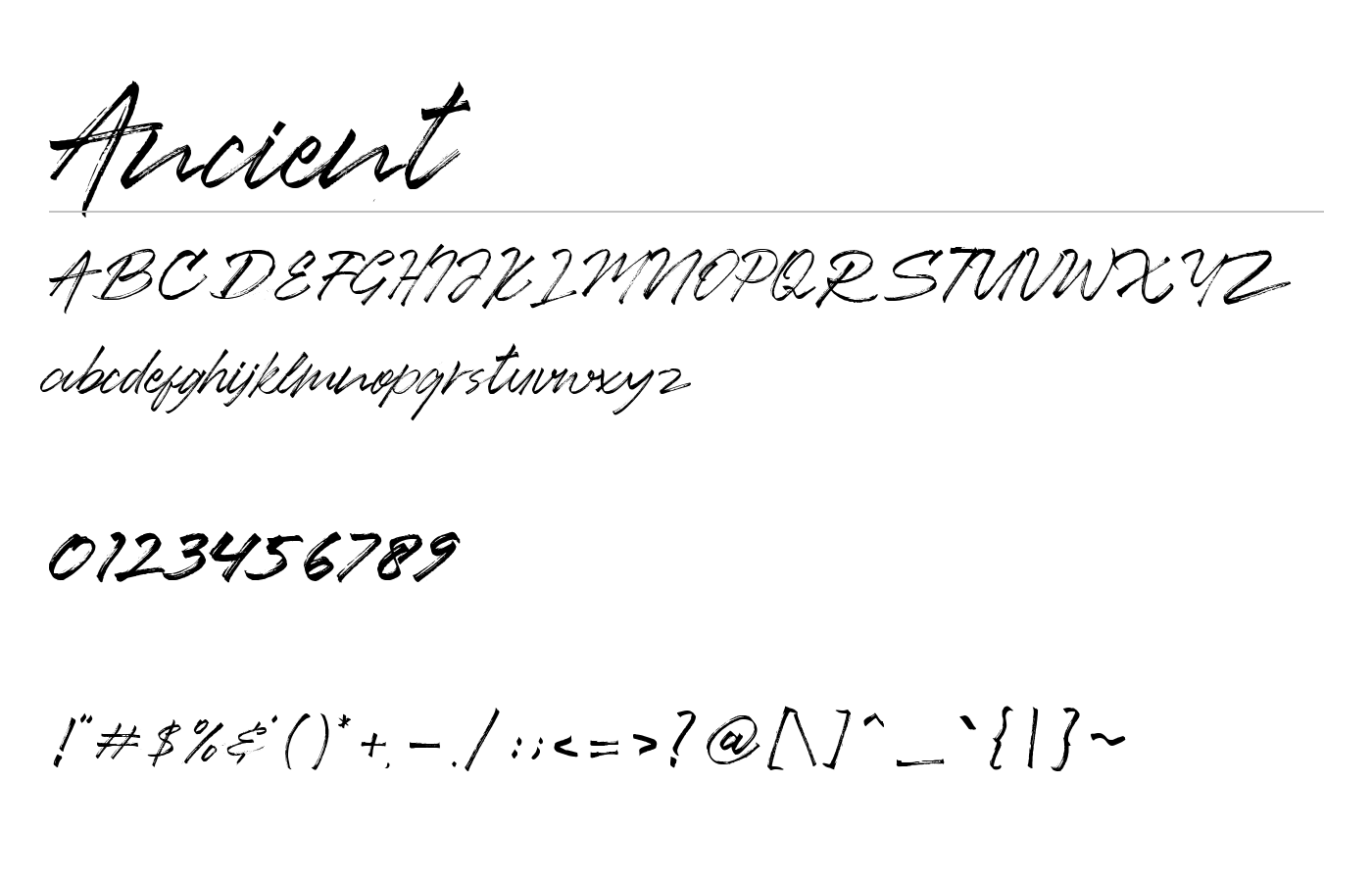
Ancient is a lively handwritten script font with a textured, brush-like style that gives it a spirited and artistic feel. Its slightly slanted characters and irregular strokes convey a sense of energy and authenticity, making it ideal for creative projects, personal branding, and designs that want to evoke a dynamic, handcrafted touch. This font works well in headlines, logos, and invitations where a natural, expressive look is desired.
Ancient Font
About Ancient Font
| Font family | Ancient Font |
| Designer | Ghazi Humam Fauzan |